Oxford University Press
This newly published annotated bible for ecumenical studies by the Oxford University Press is using Karmina and Karmina Sans.
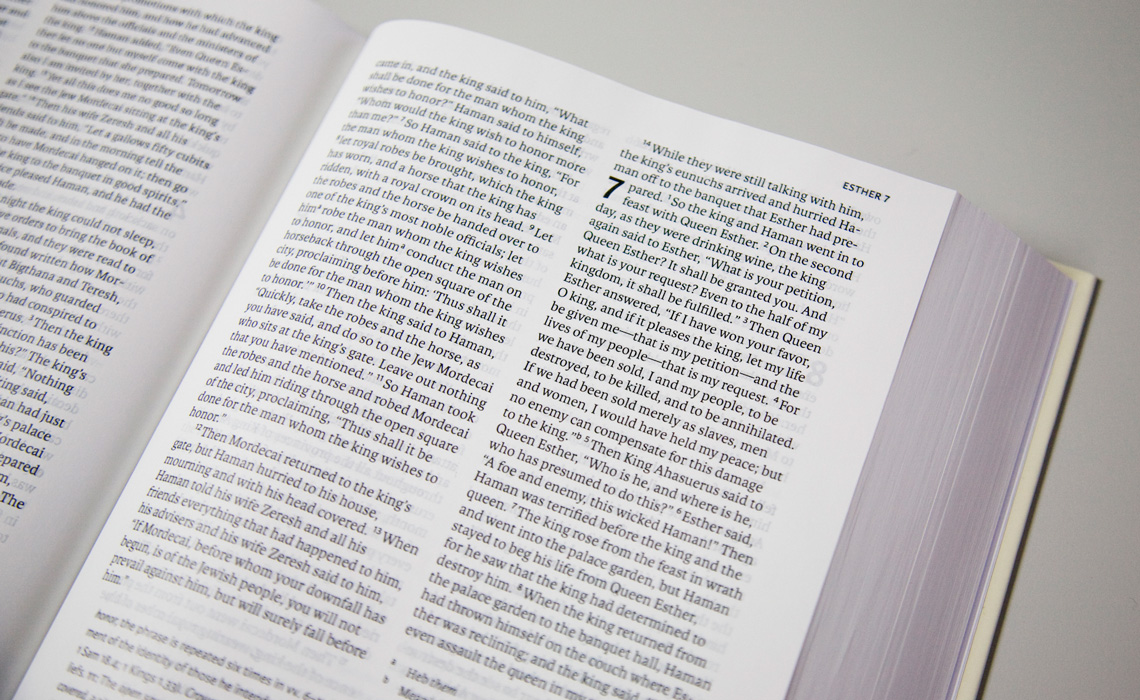
This large and ambitious project comprises a volume of around 2000 pages printed on thin paper in excellent quality. The Danish design studio 2Krogh AS superbly engaged Karmina and Karmina Sans as two main typefaces throughout the Oxford Press annotated Bible in many different sizes and weights, fullfilling a variety of functions. Karmina is a serif font built to withstand the worst printing conditions and the cumulative result of its features grants the typeface outstanding legibility and economy. Karmina Sans beautifully accompanies its serif cousin contributing a humanistic feel to the piece by its calligraphic aestehtic.